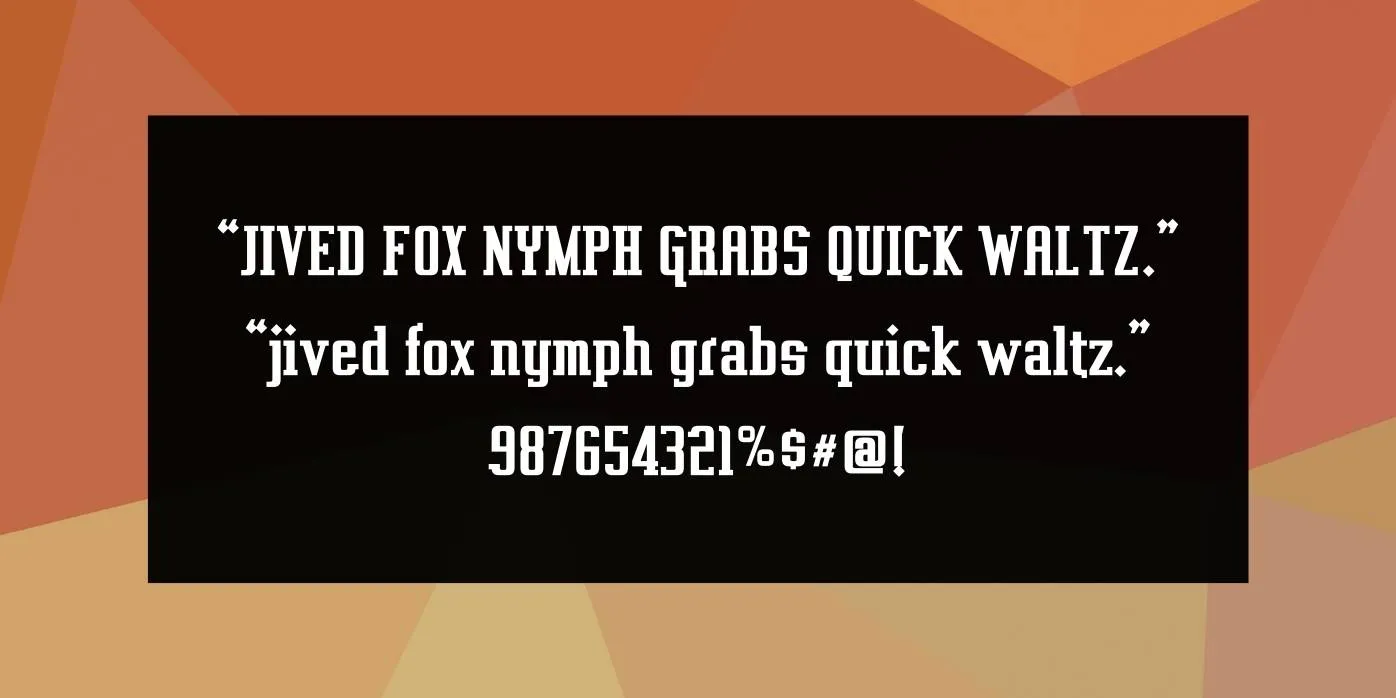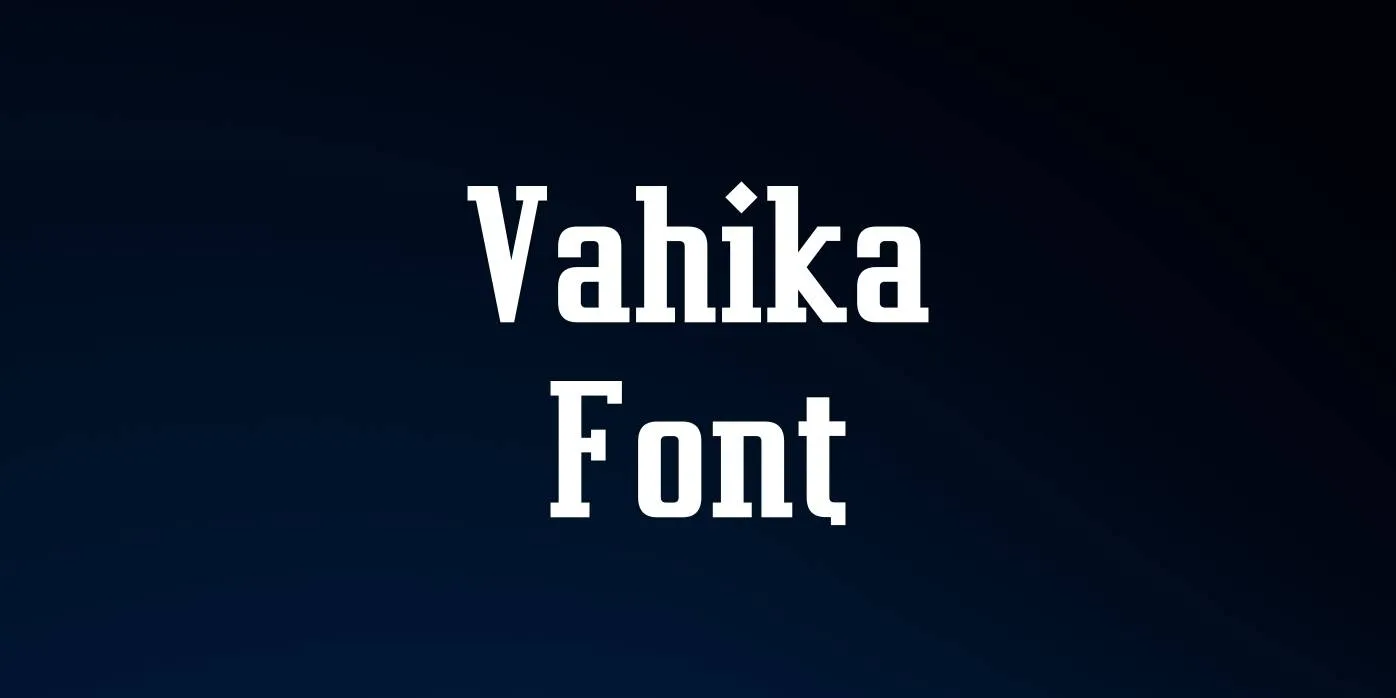
Vahika Font
Vahika Font is a serif style that was designed by Cenk Giray in 2013. The design is based on a traditional Turkish calligraphic style called “dilli” (meaning local or vernacular). This font has an upright stance and the strokes are slightly angled, giving it a dynamic feeling. The letters have wide counters and open apertures, making them highly legible.
It can also be used for short passages of text. If you’re looking for a stylish and modern Turkish font, this font is a great option. The pairing and similar font to this typeface are westchester font which has more than 300 glyphs, upper and lowercase, and a wide range of language supports. This font is available on Canva.